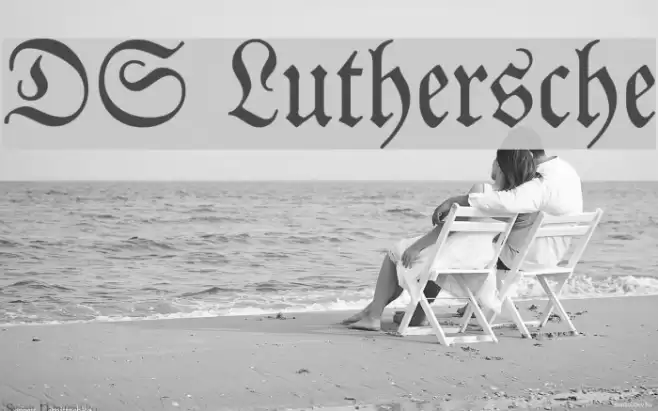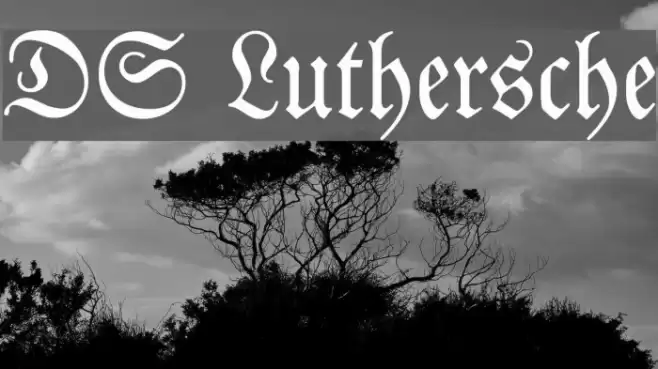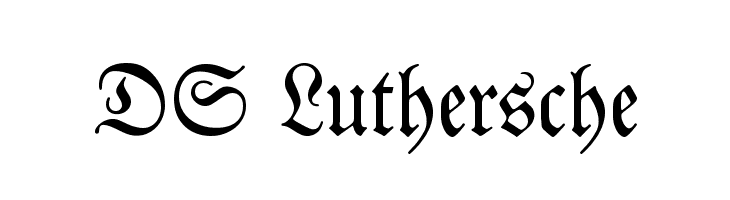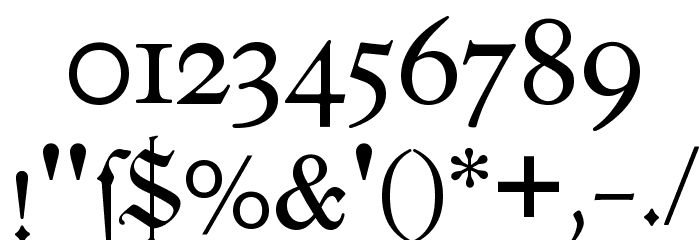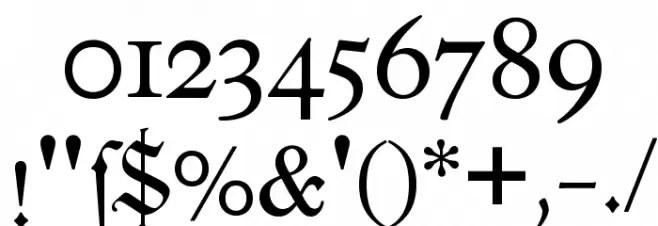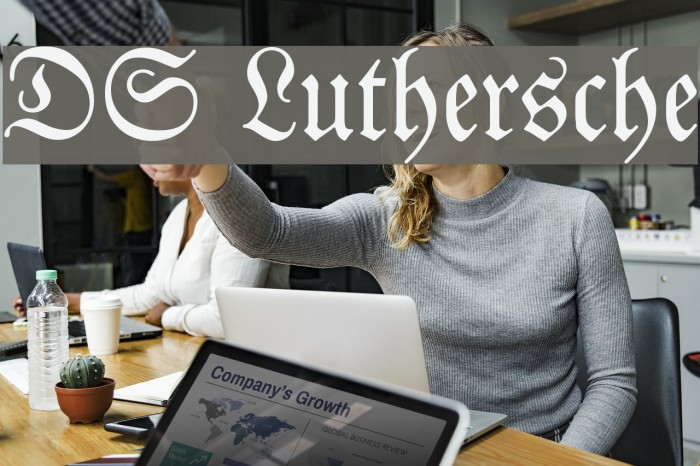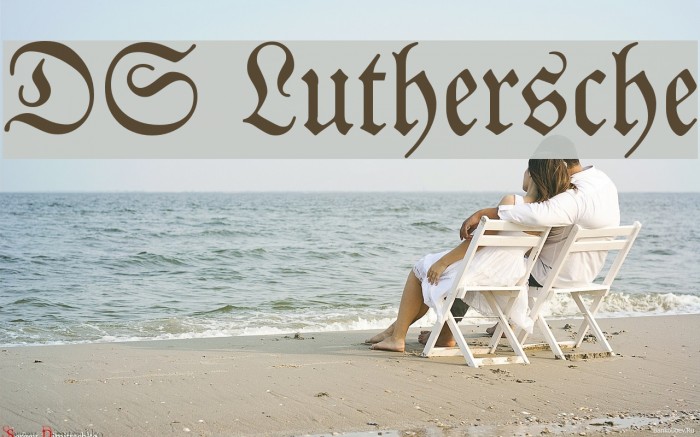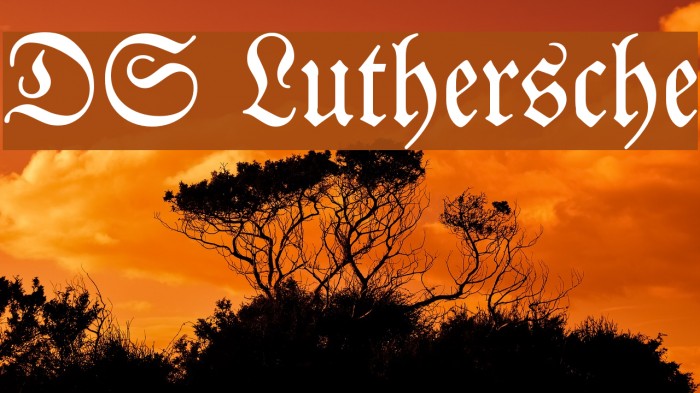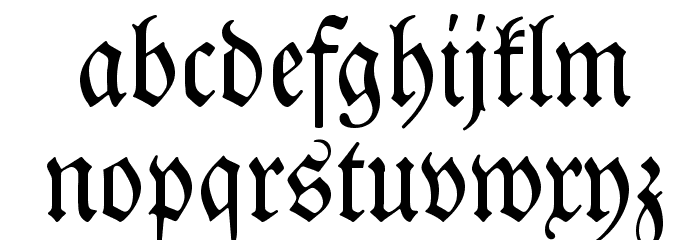
DS Luthersche Font
DS Luthersche Description
This font exudes a classic and historical charm, reminiscent of traditional calligraphy with its intricate and ornate design. The uppercase letters feature elaborate flourishes and sharp angles, giving them a distinguished and formal appearance. The lowercase letters maintain a similar style, with a slightly more subdued elegance that complements the uppercase. The numerals are bold and clear, maintaining the decorative style without sacrificing readability. Special characters are crafted with the same attention to detail, ensuring consistency across the font. This typeface is ideal for projects that require a touch of sophistication and historical flair.
A decorative, blackletter-style font with intricate details and a classic, historical feel from Uncategorized fonts.
- Proposed Projects: Ideal for wedding invitations, historical documents, certificates, and branding that requires a vintage or formal touch.
- Overall Style: Vintage
- Use Case: Logos, Headlines, Decorative text